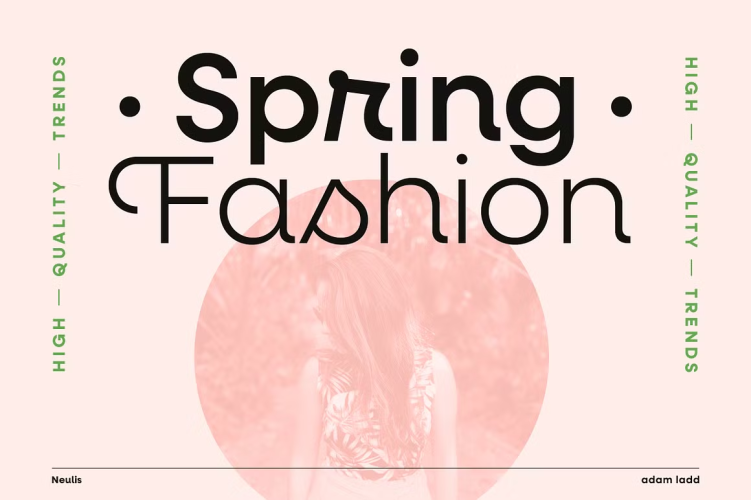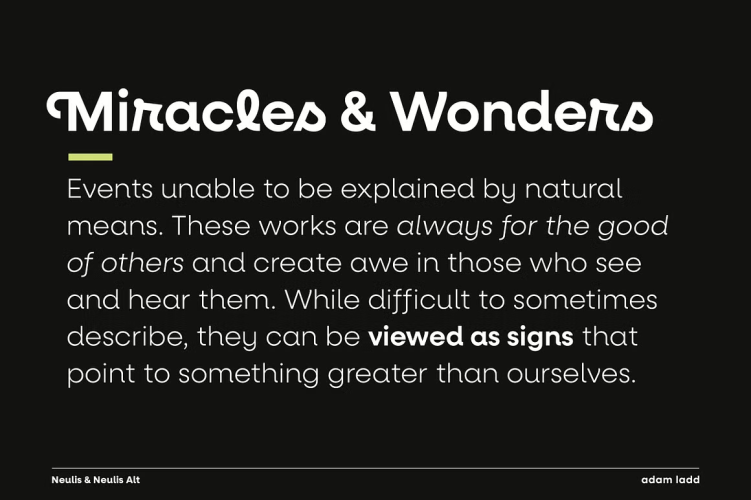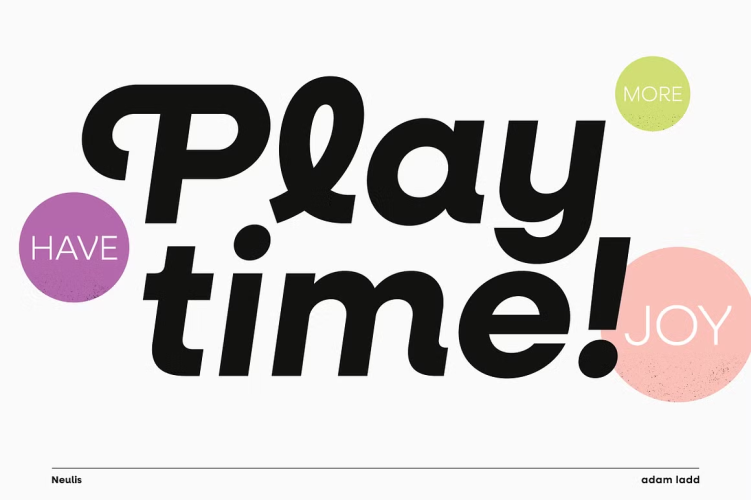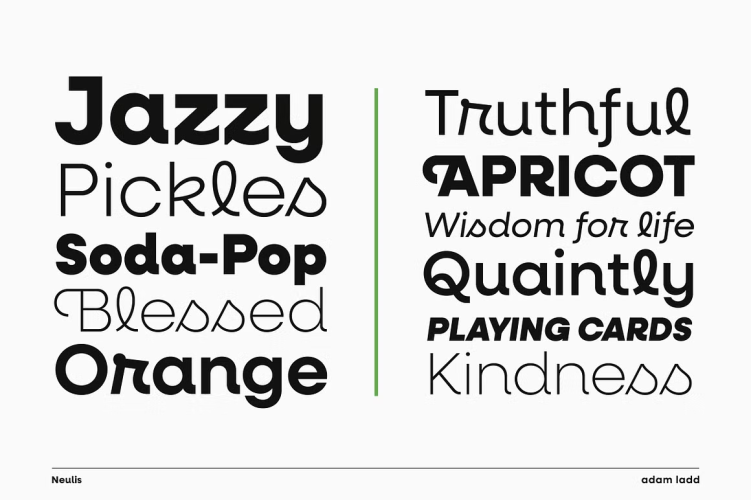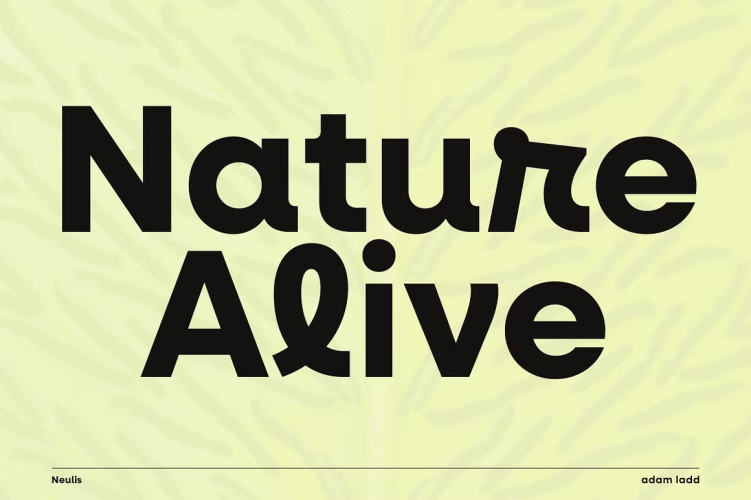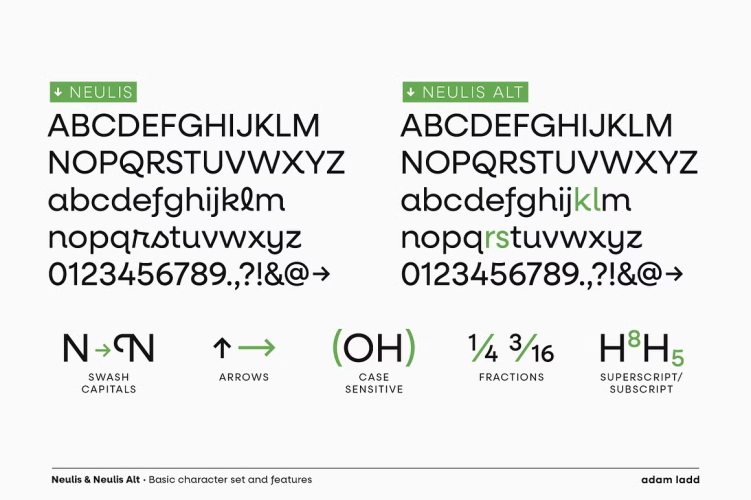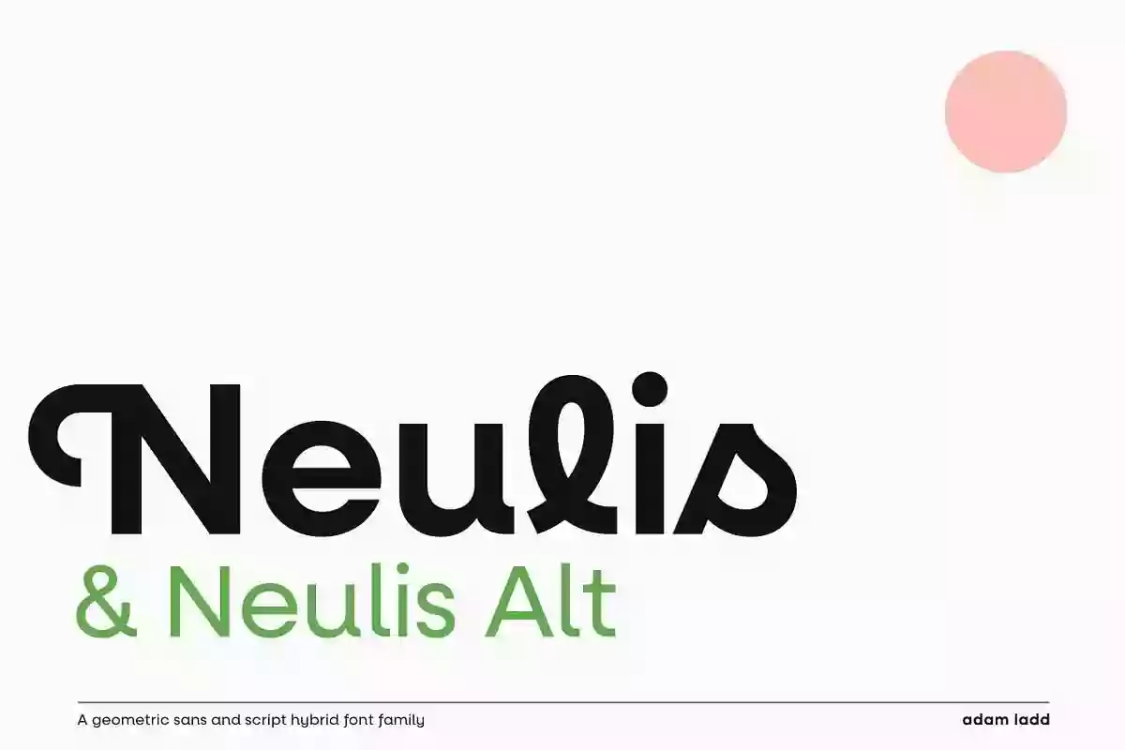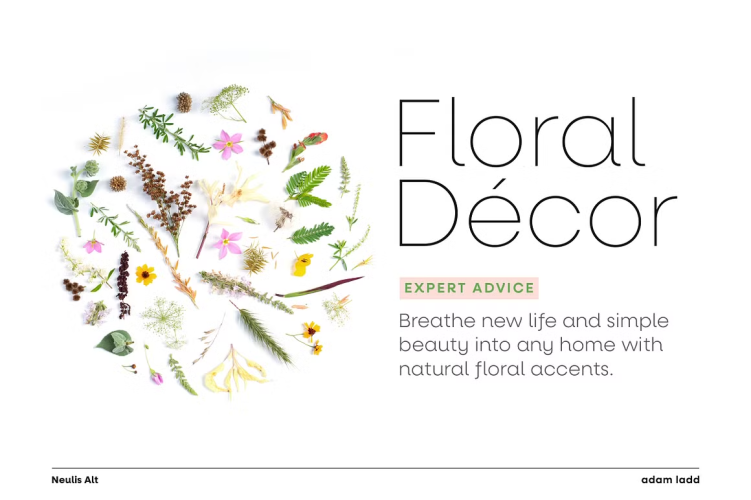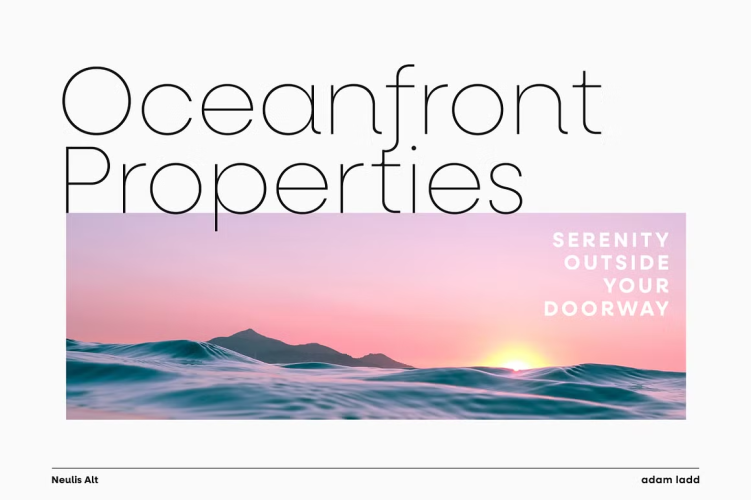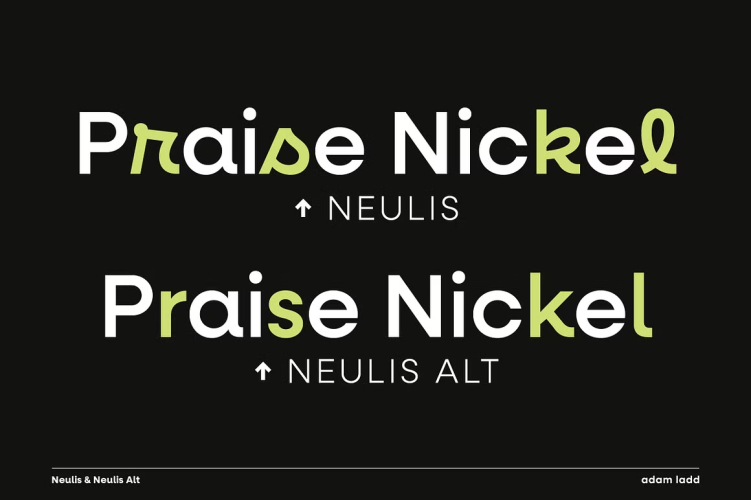
Neulis Font
Neulis is a geometric sans serif and modern script hybrid font in two family variations.
The Neulis design uniquely displays characters inspired by script letterforms (like the l, k, r, s) and script-style exit strokes (like the a, n, u) that blend into the typeface’s overall geometric skeleton. The Neulis Alt design offers a more restrained option by keeping with more classic sans serif letterforms.
The monoline appearance makes the type look clean and modern. The two family options can be paired to suit display and text situations. Neulis provides a distinct, creative, and expressive message for branding, advertising, packaging, headlines, magazines, websites, logos, and more.
With almost 600 glyphs, this font has extensive multilingual Latin language support (100+ languages) for Western, Central, and South Eastern European.